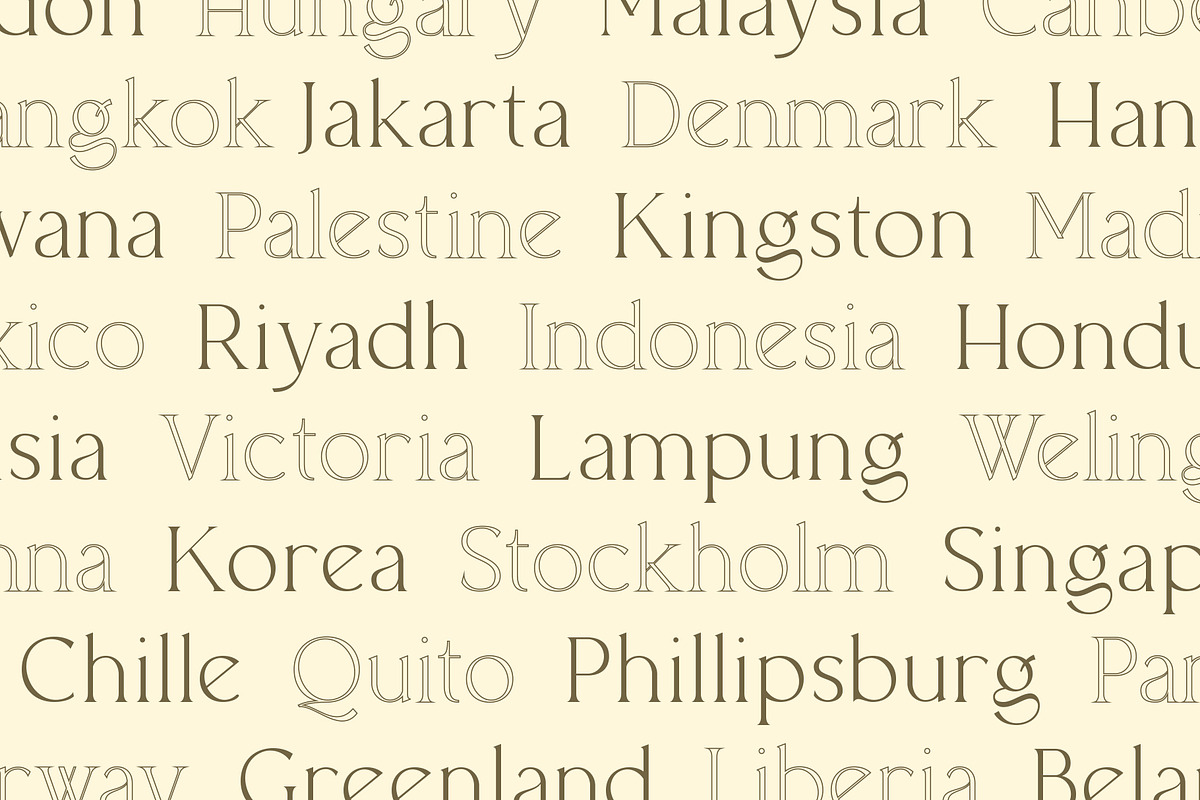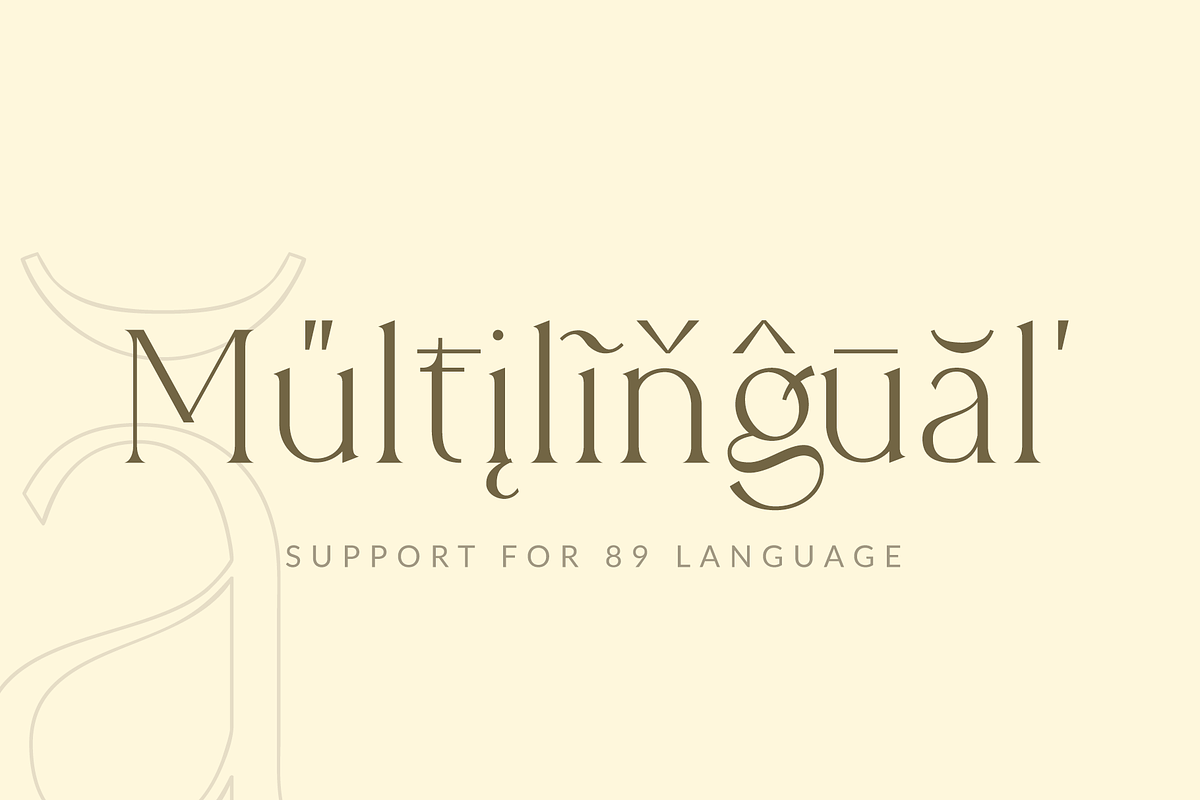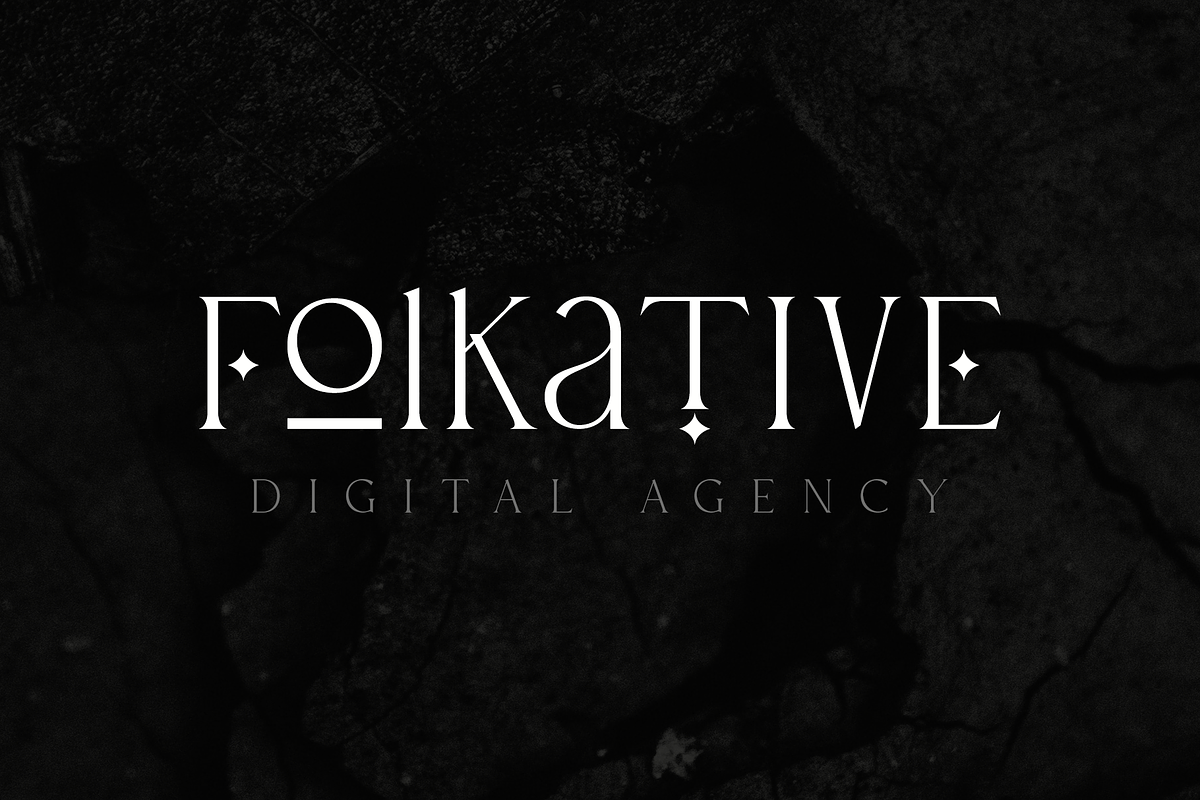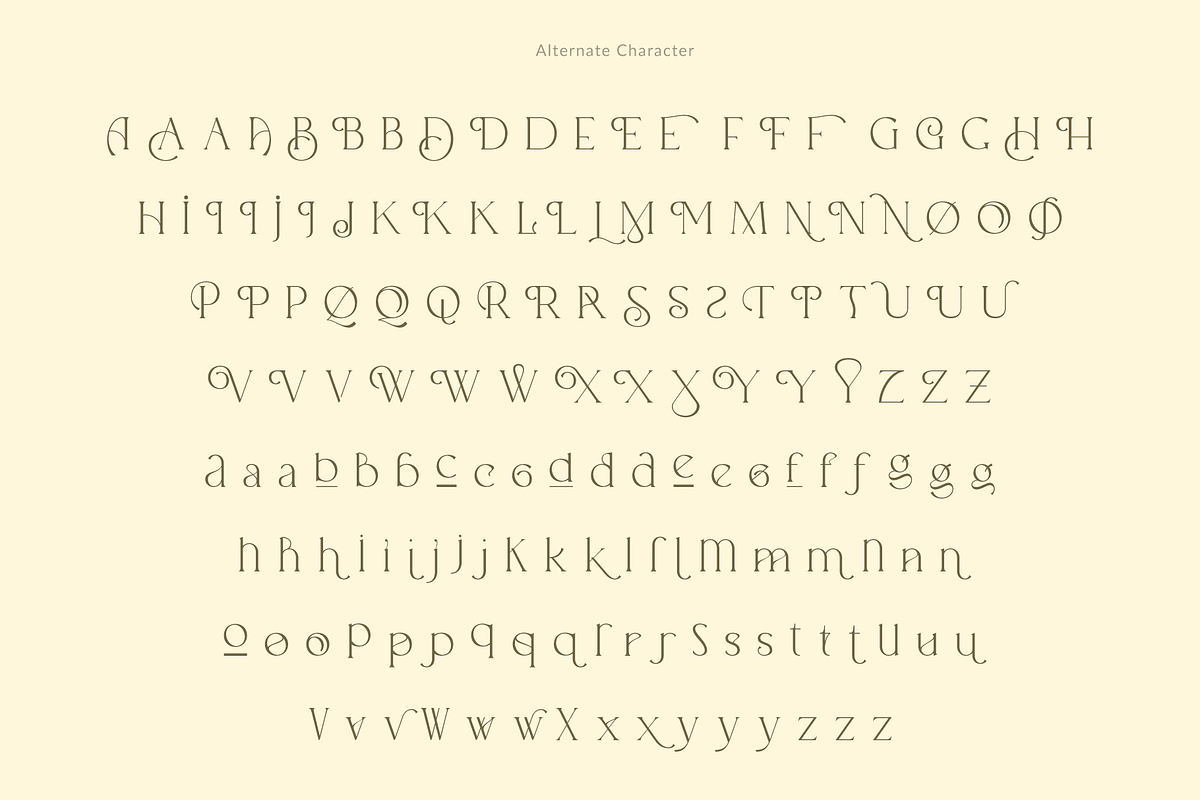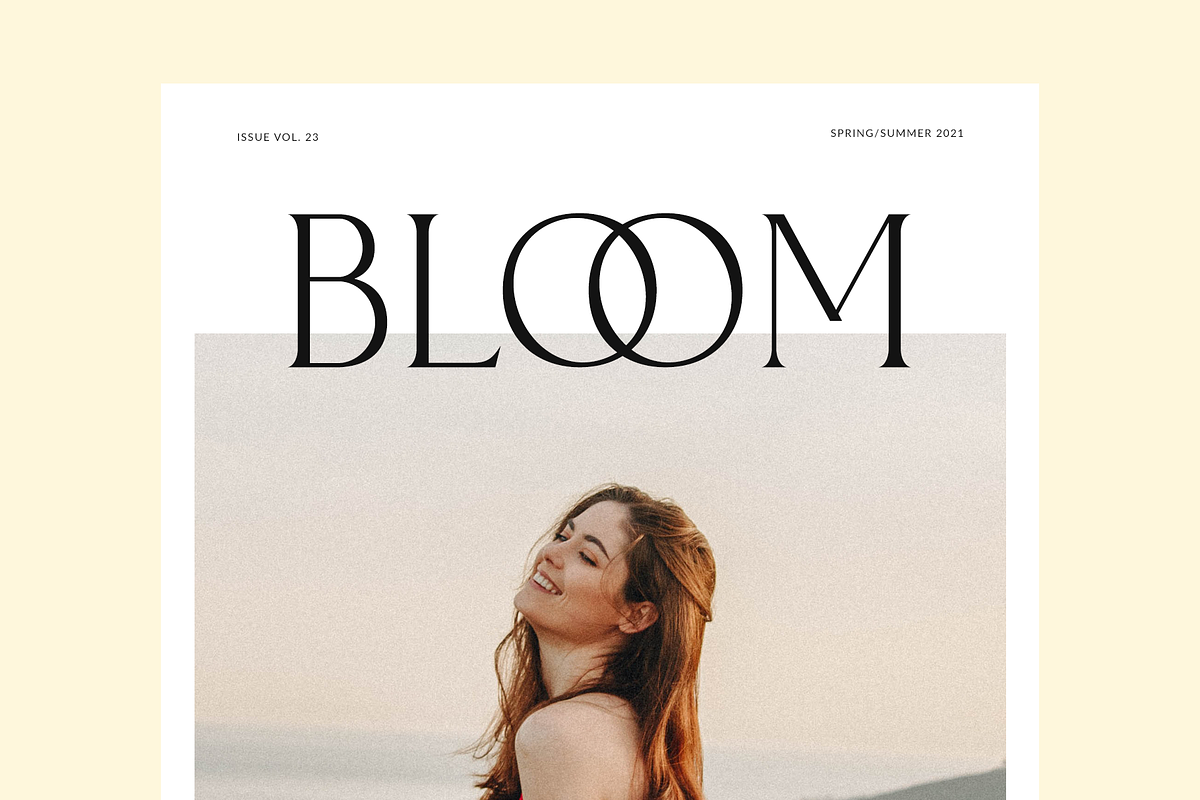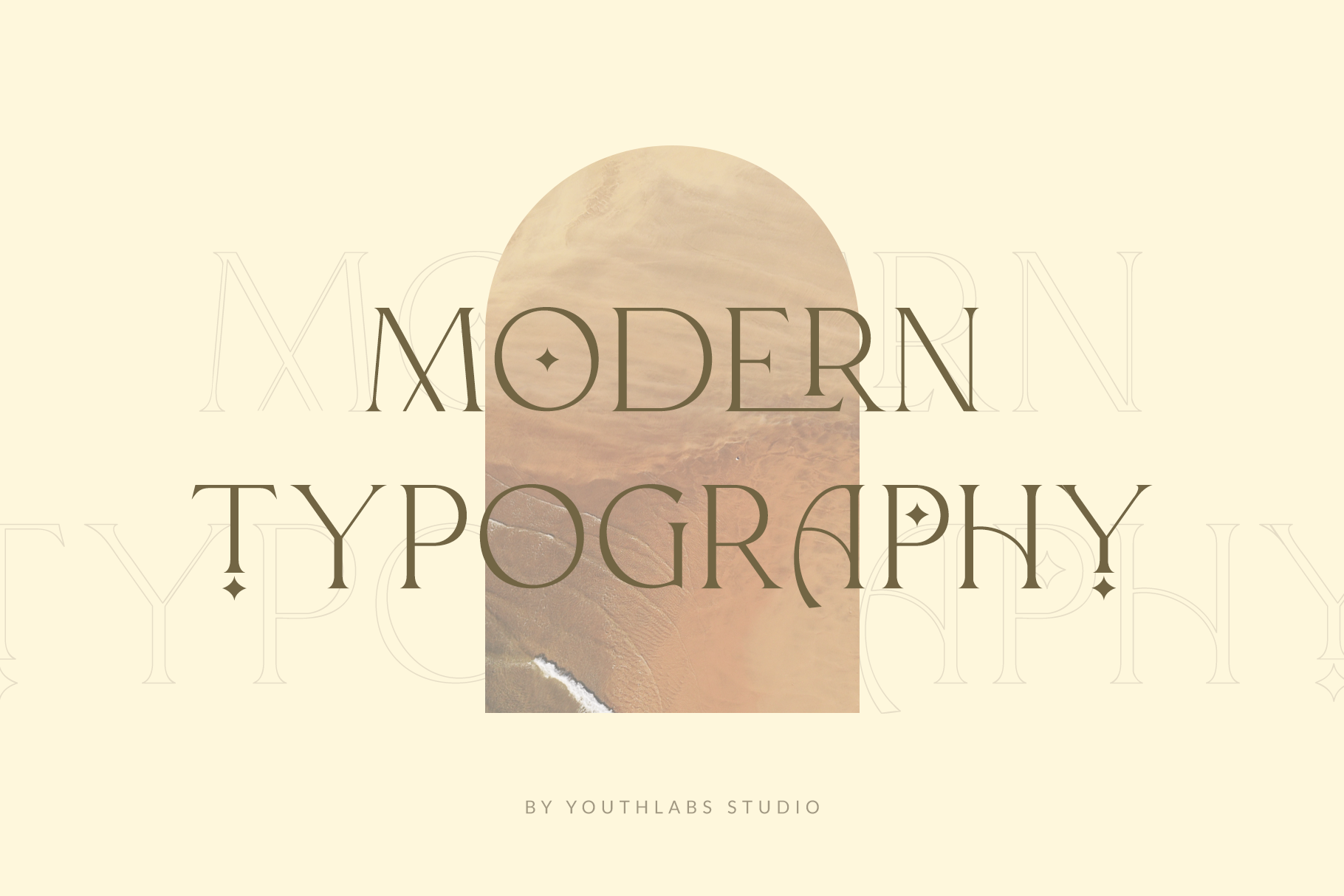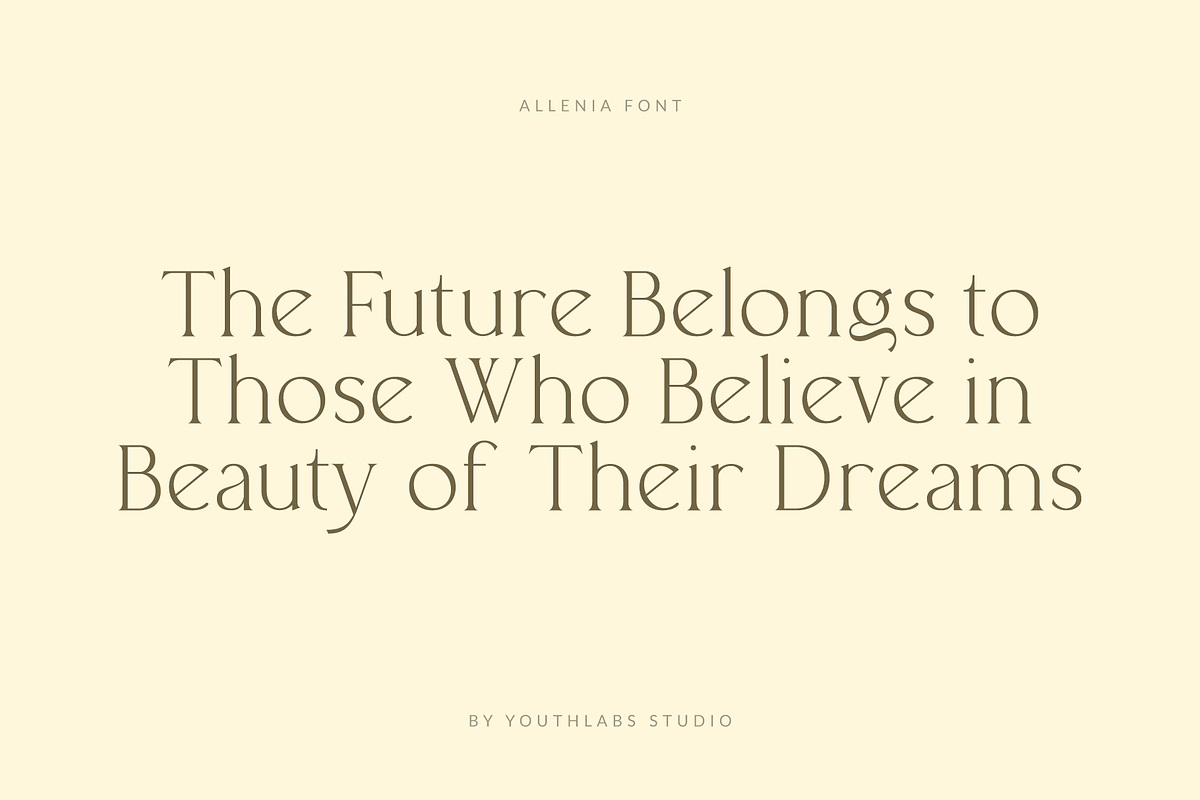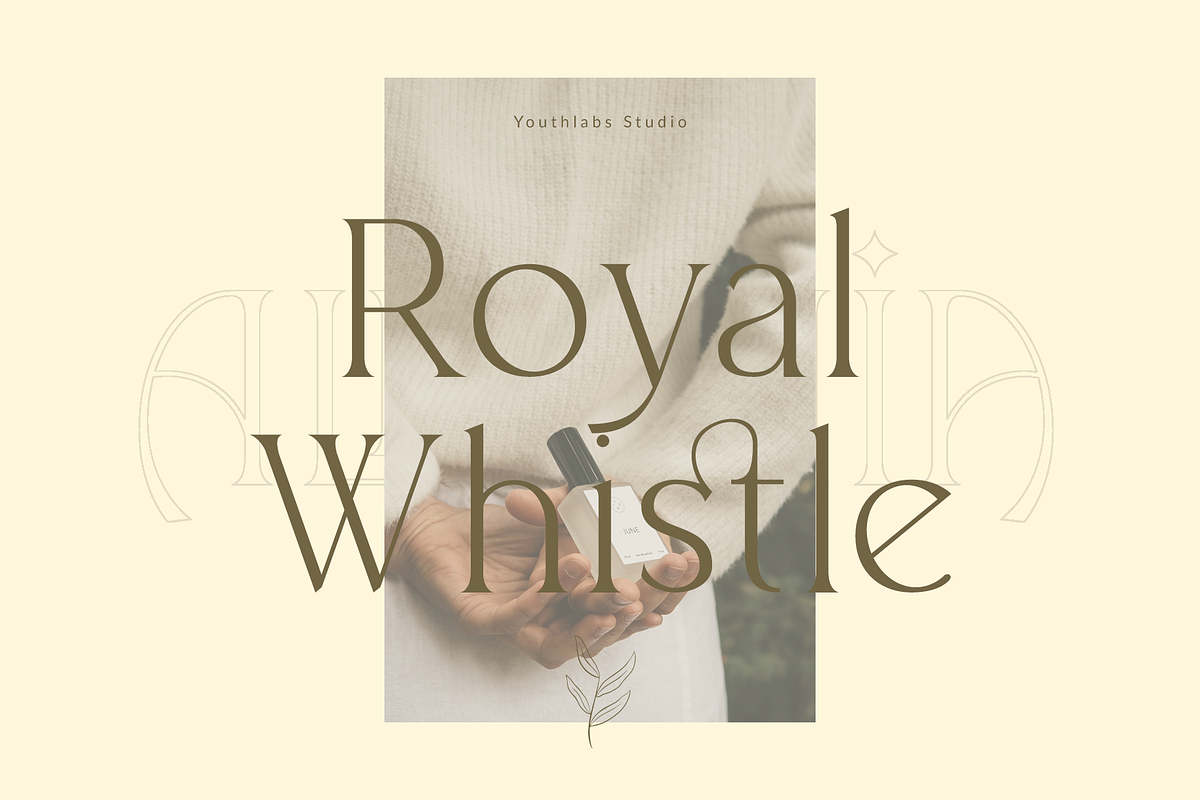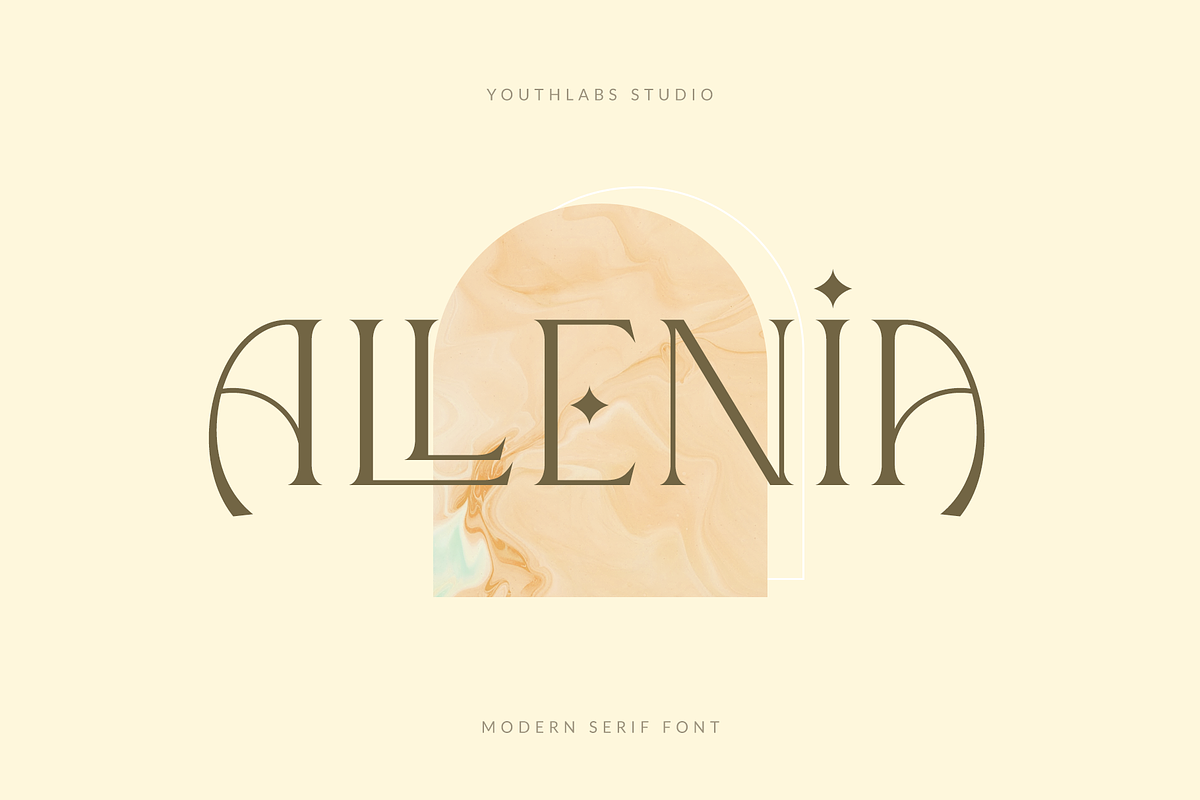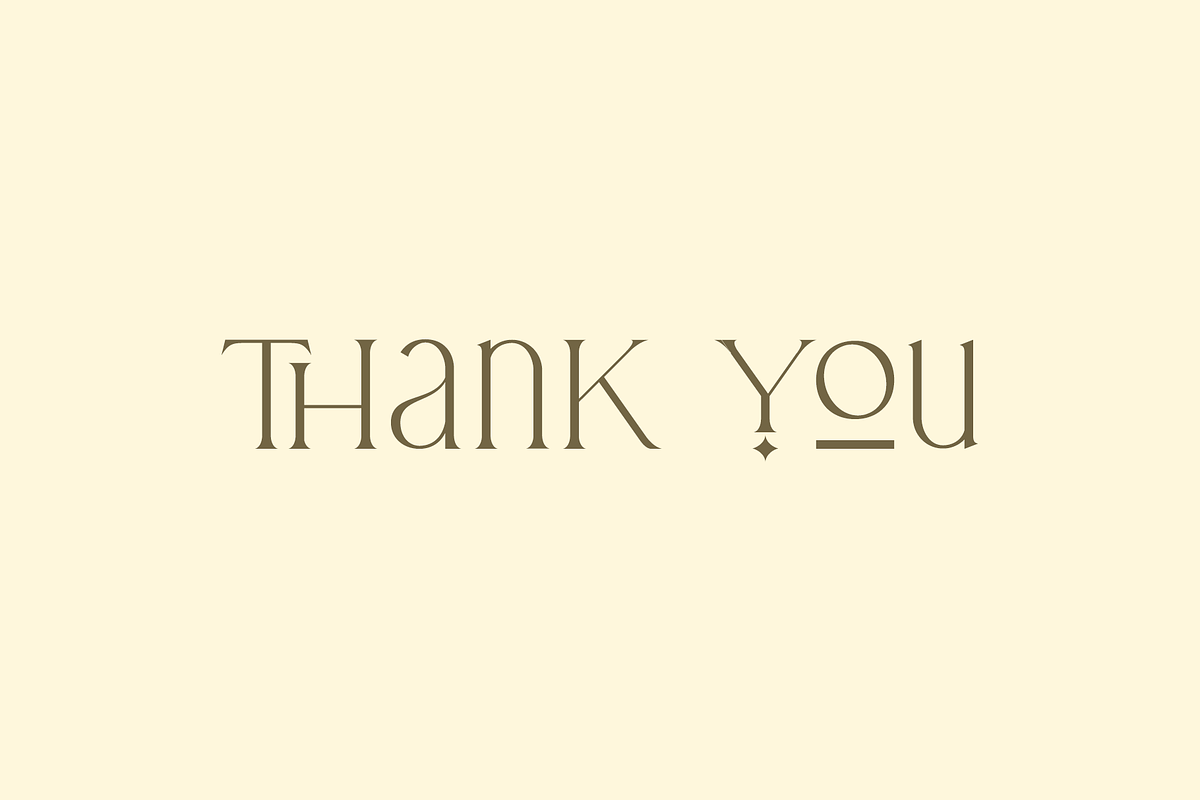
Allenia Serif - Modern Font
Introducing Allenia Serif Font - A Brand New Serif Font with Modern and Luxury Look, More Opentype Feature, more neat curves
Allenia Font Inspired by Modern and Luxury Typography. Allenia Font is a very versatile font. you can use this font to various design. Basics can improve more than 150 alternative character where can collaborate with Vector Pack and Premade Logos
Allenia Serif Font support 89 Language : Afrikaans, Albanian, Asu, Basque, Bemba, Bena, Brenton, Catalan, Chiga, Colognian, Cornish, Croatian, Czech, Danish, Dutch, Embu, English, Esperanto, Estonian, Faroese, Filipino, Finnish, French, Friulian, Galician, German, Gusii, Hungarian, Indonesian, Irish, Italian, Kabuverdianu, Kaallisut, Kalenjin, Kamba, Kikuyu, Kinyarwanda, Latvian, Lithuanian, Lower Sorbian, Luo, Luxembourgish, Luyia, Machame, Makhuwa-Meetto, Makonde, Malagasy, Maltese, Manx, Meru, Morisyen, North Ndebele, Norwegian, Bokmål, Norwegian Nynorsk, Nyankole, Oromo, Polish, Portuguese, Quecha, Romansh, Rombo, Rundi, Rwa, Samburu, Sango, Sangu, Scottish Gaelic, Sena, Serbian, Shambala, Shona, Slovak, Soga, Somali, Spanish, Swahili, Swedish, Swiss German, Taita, Teso, Turkish, Upper Sorbian, Uzbek (Latin), Volapük, Vunjo, Walser, Welsh, Western Frisian, Zulu
What's the Feature ?
- Uppercase & Lowercase Alternate
- 89 Language Support
- Stylistic Alternate
- Vector Pack for Logo and Background